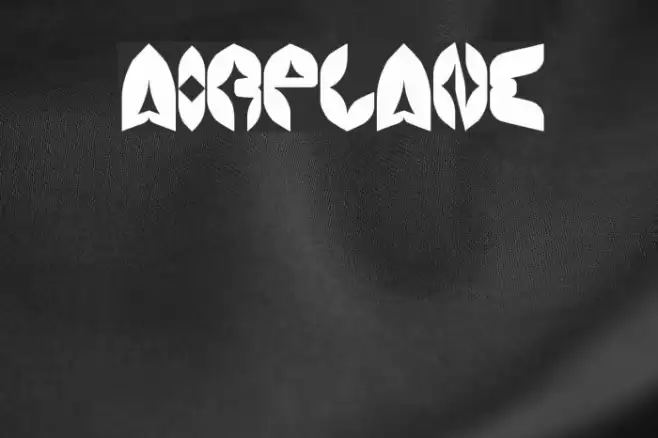
AIRPLANE Font
AIRPLANE Description
This font features a bold, geometric design with a strong emphasis on angular shapes and sharp edges. Each character is crafted with a unique, abstract form that gives the typeface a futuristic and dynamic appearance. The letters are heavily stylized, with a consistent use of thick strokes and pointed terminals, creating a sense of movement and energy. The overall aesthetic is striking and modern, making it ideal for projects that require a bold visual impact. The font's distinctive style is both artistic and functional, offering versatility for various design applications.
A bold, geometric font with angular shapes and a futuristic style from Uncategorized fonts.
- Proposed Projects: Ideal for branding, posters, album covers, and any design requiring a bold, modern aesthetic.